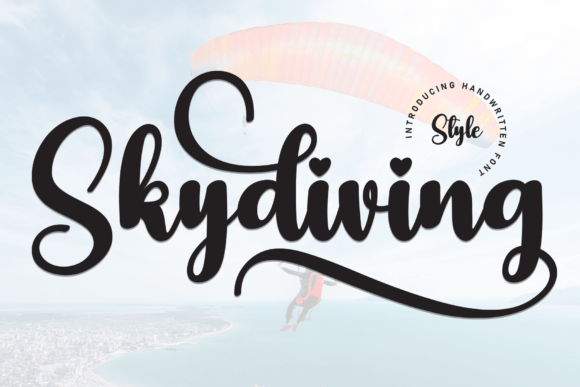
Dive into the world of exhilarating adventures with Skydiving Font, a script font that captures the essence of freedom and fearlessness! Crafted with meticulous precision by the renowned Strongkeng Old, Skydiving Font is the ultimate choice for designers seeking to create captivating dashboards that leave a lasting impression.
With its graceful strokes and playful curves, Skydiving Font exudes an aura of carefree spirit and boundless imagination. Let your creativity soar as you harness the power of this versatile font to transform ordinary designs into extraordinary masterpieces.
Whether you're designing wedding invitations, greeting cards, or playful branding materials, Skydiving Font is your perfect companion. Its charming personality adds a touch of whimsy and delight to any project, making it an instant crowd-pleaser.
So, dive into the world of limitless possibilities with Skydiving Font, and let your designs take flight!